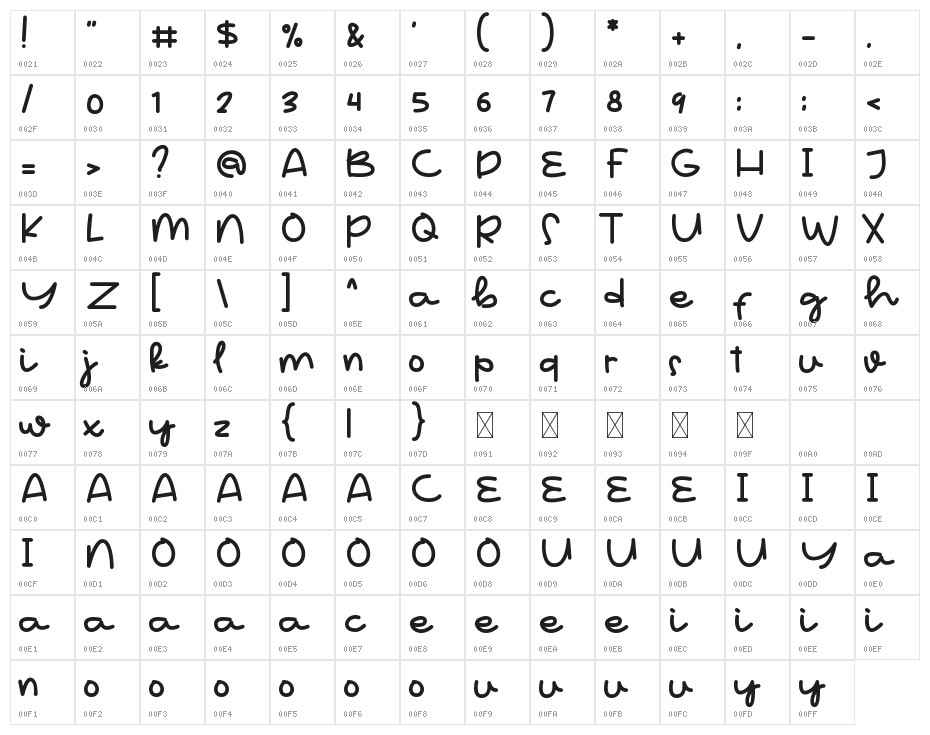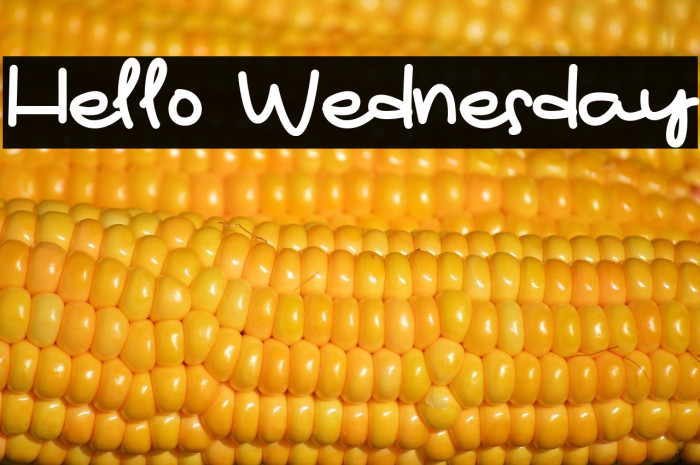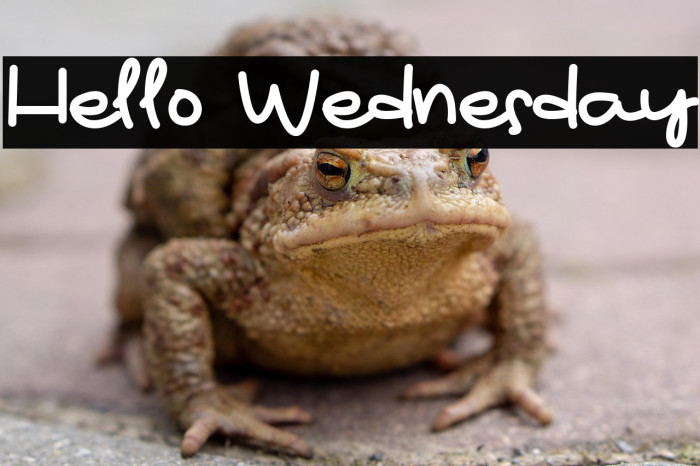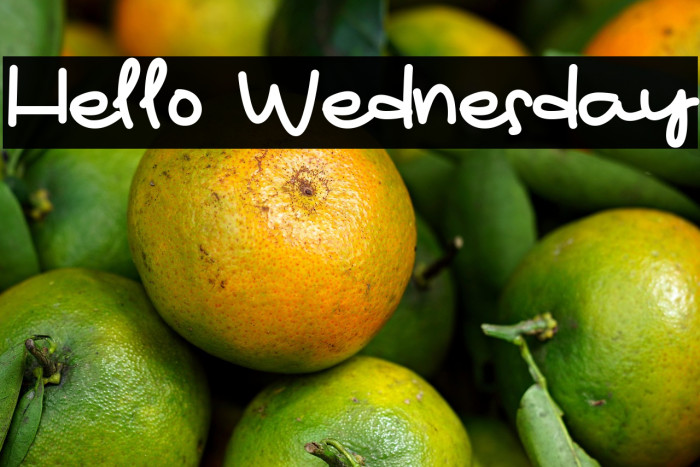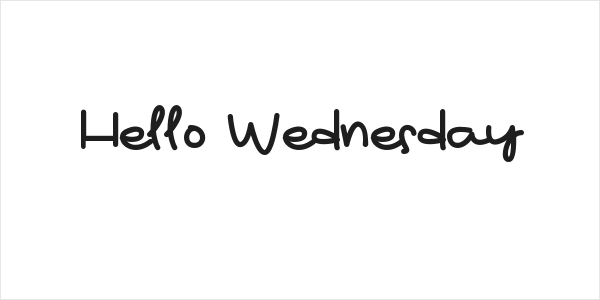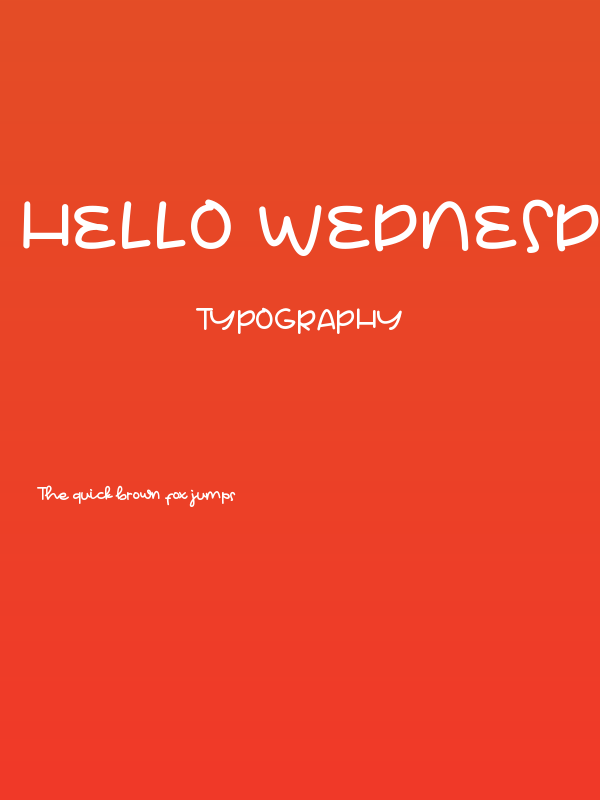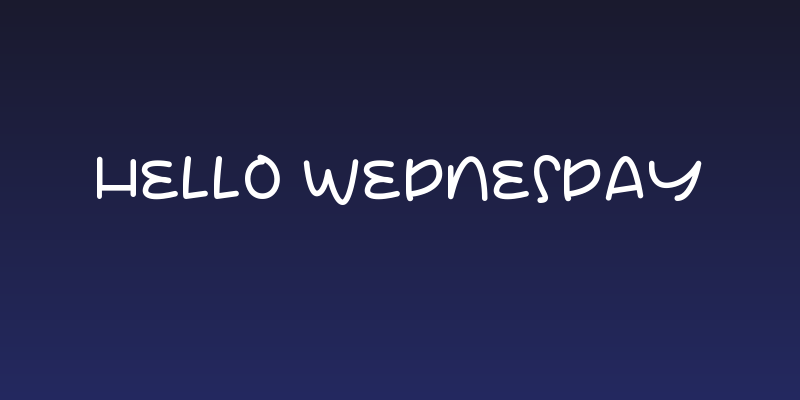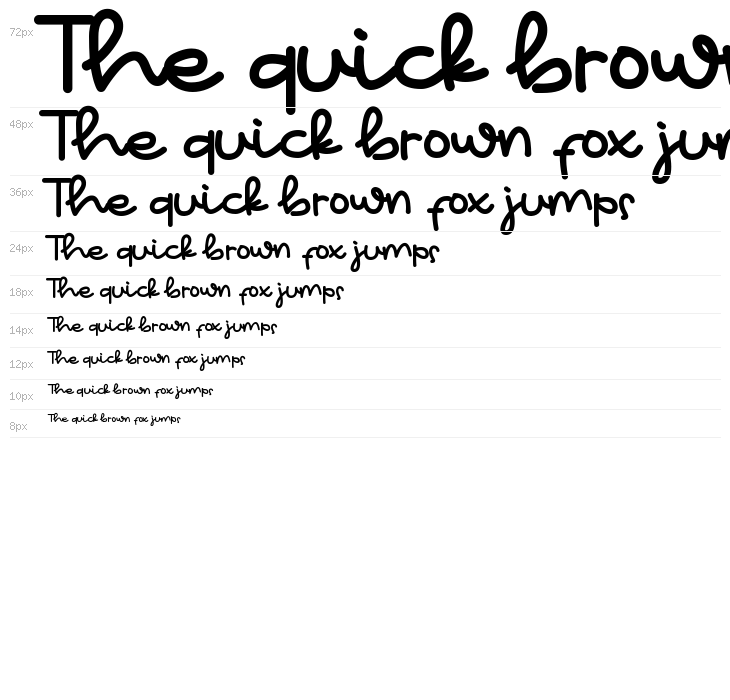
Hello Wednesday Font
Hello Wednesday Description
This font features a playful and casual handwritten style, characterized by its smooth, rounded edges and consistent stroke width. The letters are slightly slanted, giving a dynamic and informal appearance. The uppercase and lowercase letters maintain a cohesive look, with a slight variation in size that adds to its charm. Numbers and special characters are designed to match the overall style, ensuring a uniform look across all text. This font is ideal for projects that require a friendly and approachable feel.
| Use Case | Headlines, Informal text, Branding |
| Proposed Projects | Ideal for greeting cards, children's books, casual branding, and social media graphics. |